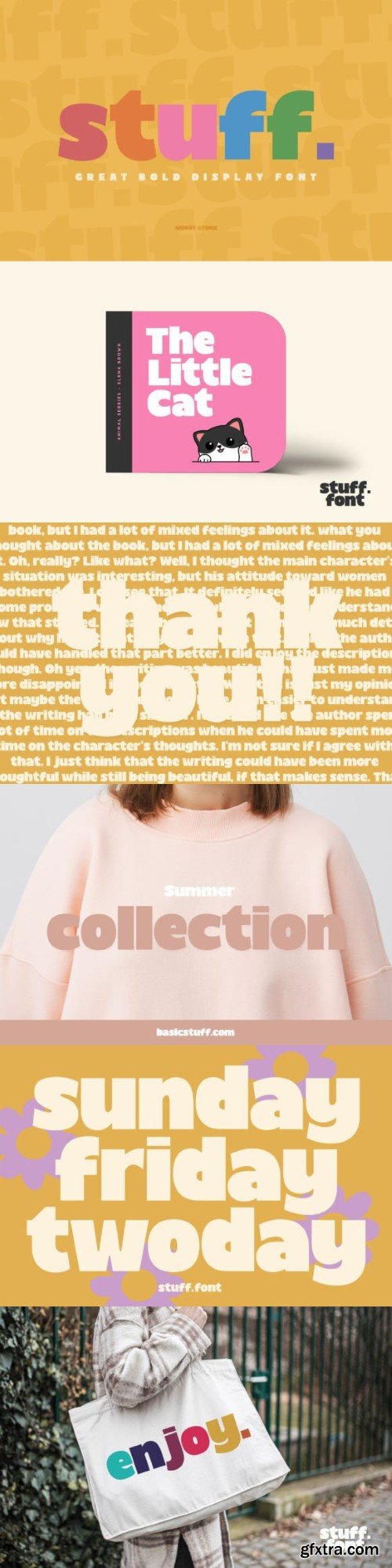
Stuff Font
Introducing Stuff, a perfect blend of classic vintage charm and bold modern aesthetics. This font features a clean style, making it an ideal choice for both display or product design. From advertising boards to product labeling and creative artwork, the versatility of Stuff. allows for a striking, effective application. Immerse yourself in the alluring beauty of the past with the crisp and contemporary vibe of today. Trust in Stuff. to add the striking touch to your design concepts. Experience the enchanting amalgam of boldness and neatness with Stuff – where the vintage meets the new!